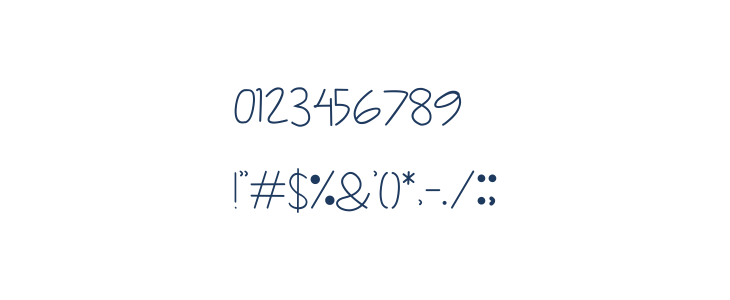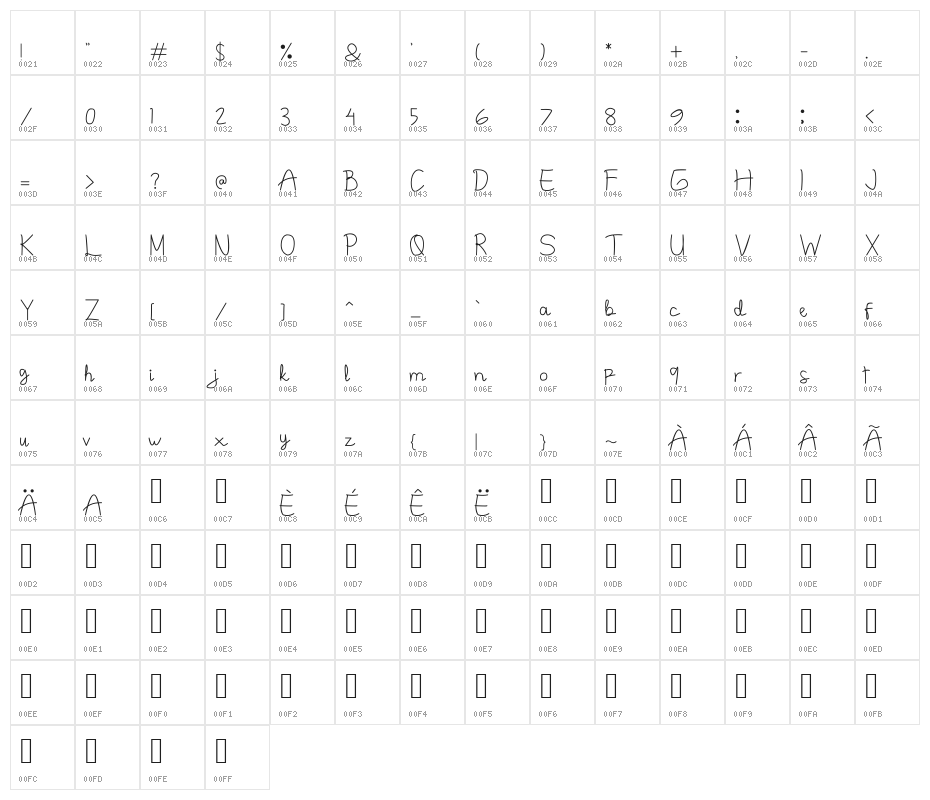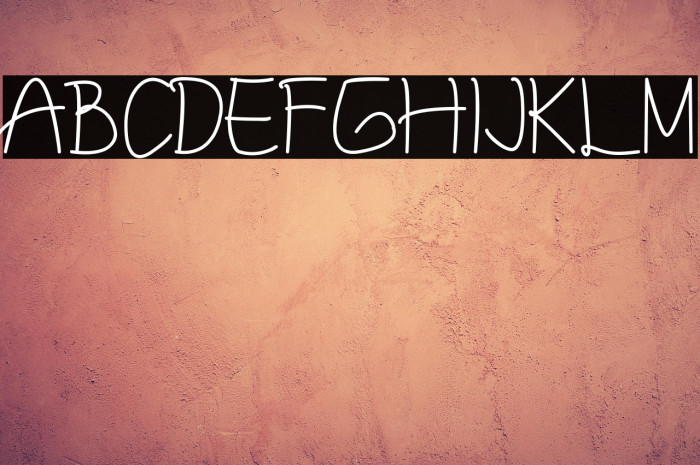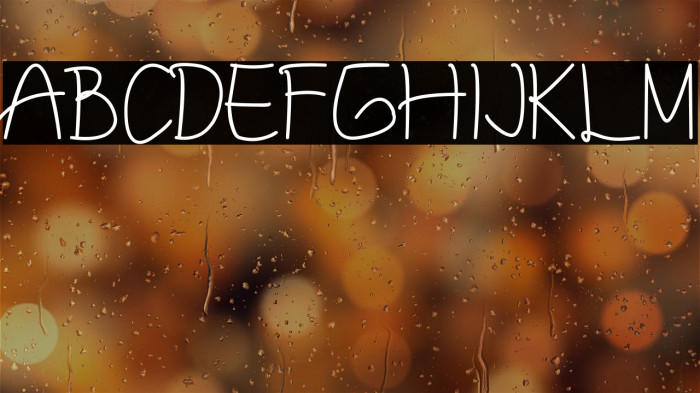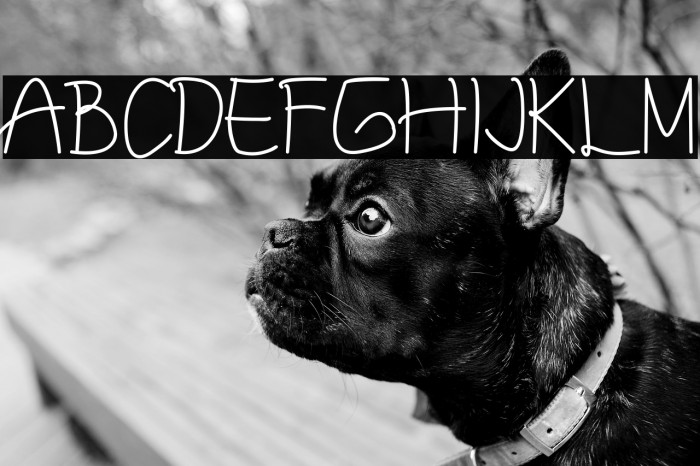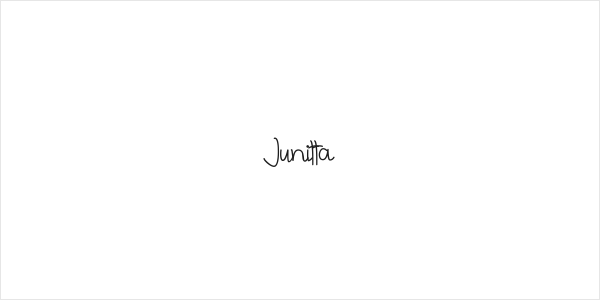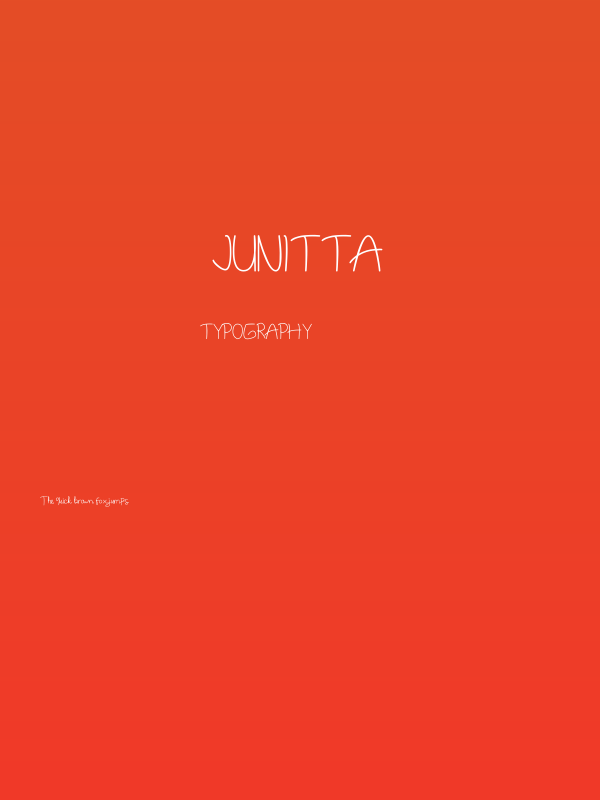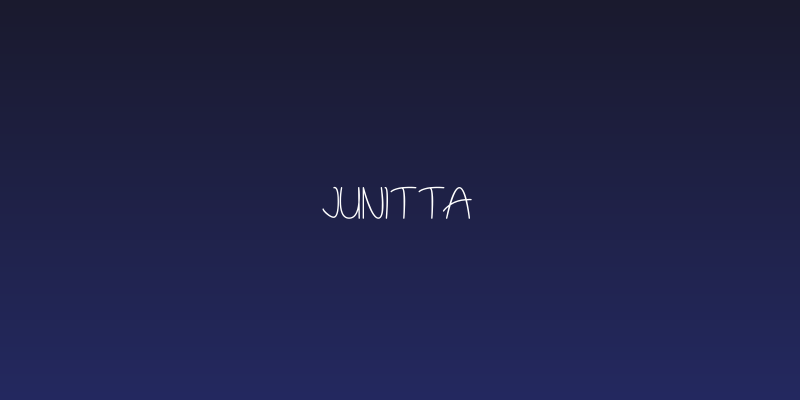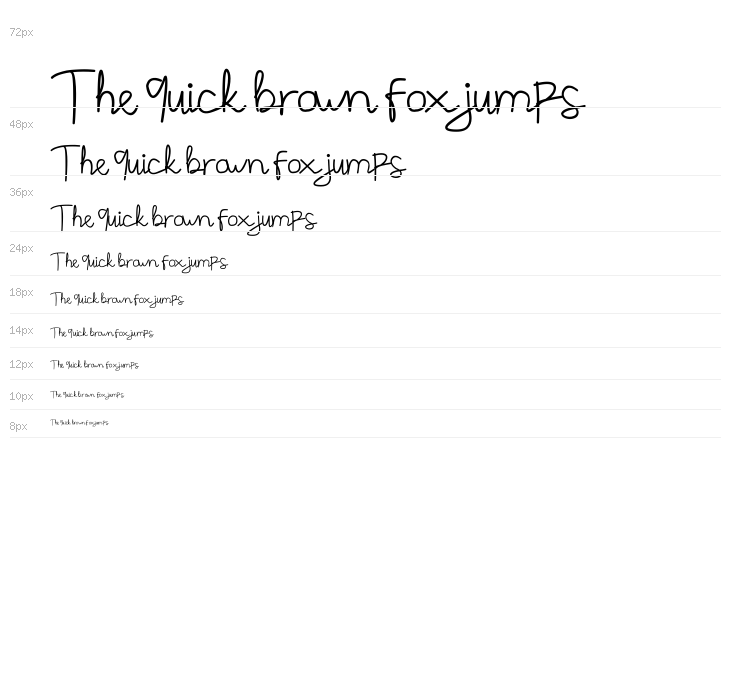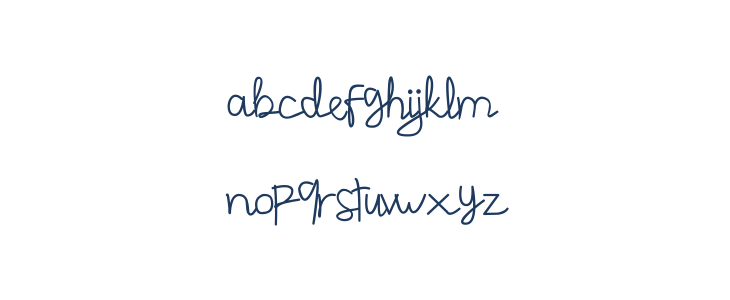
Junitta Font
Junitta Description
This font features a playful and whimsical style, characterized by its handwritten appearance. The letters have a casual, flowing form with slight variations in stroke thickness, giving it a dynamic and lively feel. The uppercase letters are tall and slightly narrow, while the lowercase letters maintain a consistent, rounded shape. The numbers and special characters follow the same playful aesthetic, making the font suitable for creative and informal designs. Its unique style adds a personal touch to any project, making it ideal for invitations, greeting cards, and other artistic endeavors.
| Overall Style | Playful and Whimsical |
| Use Case | Headlines, Creative projects, Informal text |
| Proposed Projects | Ideal for invitations, greeting cards, children's books, and creative branding projects. |